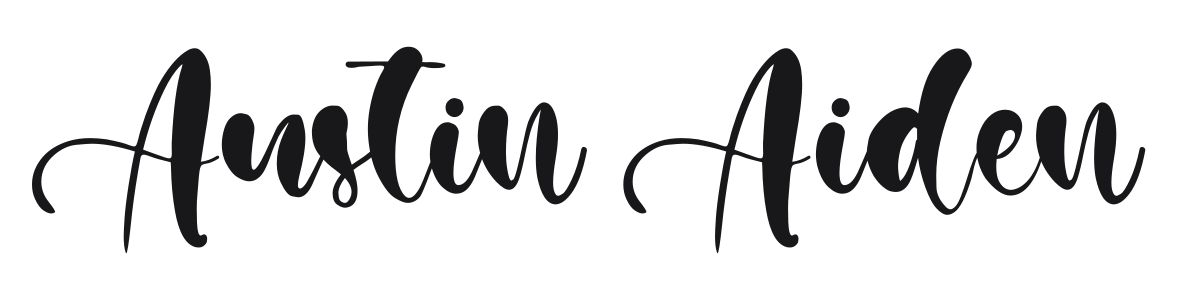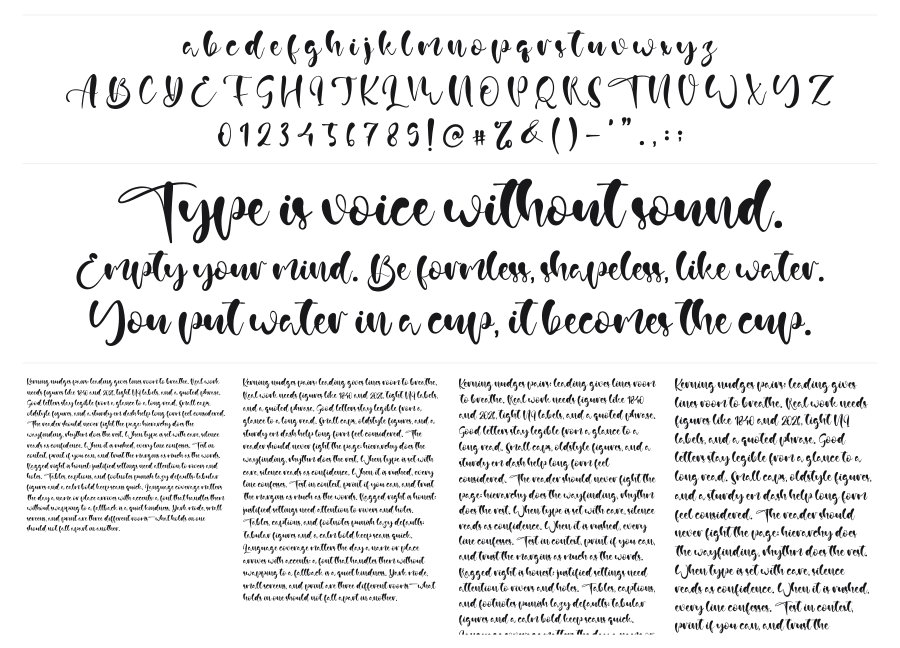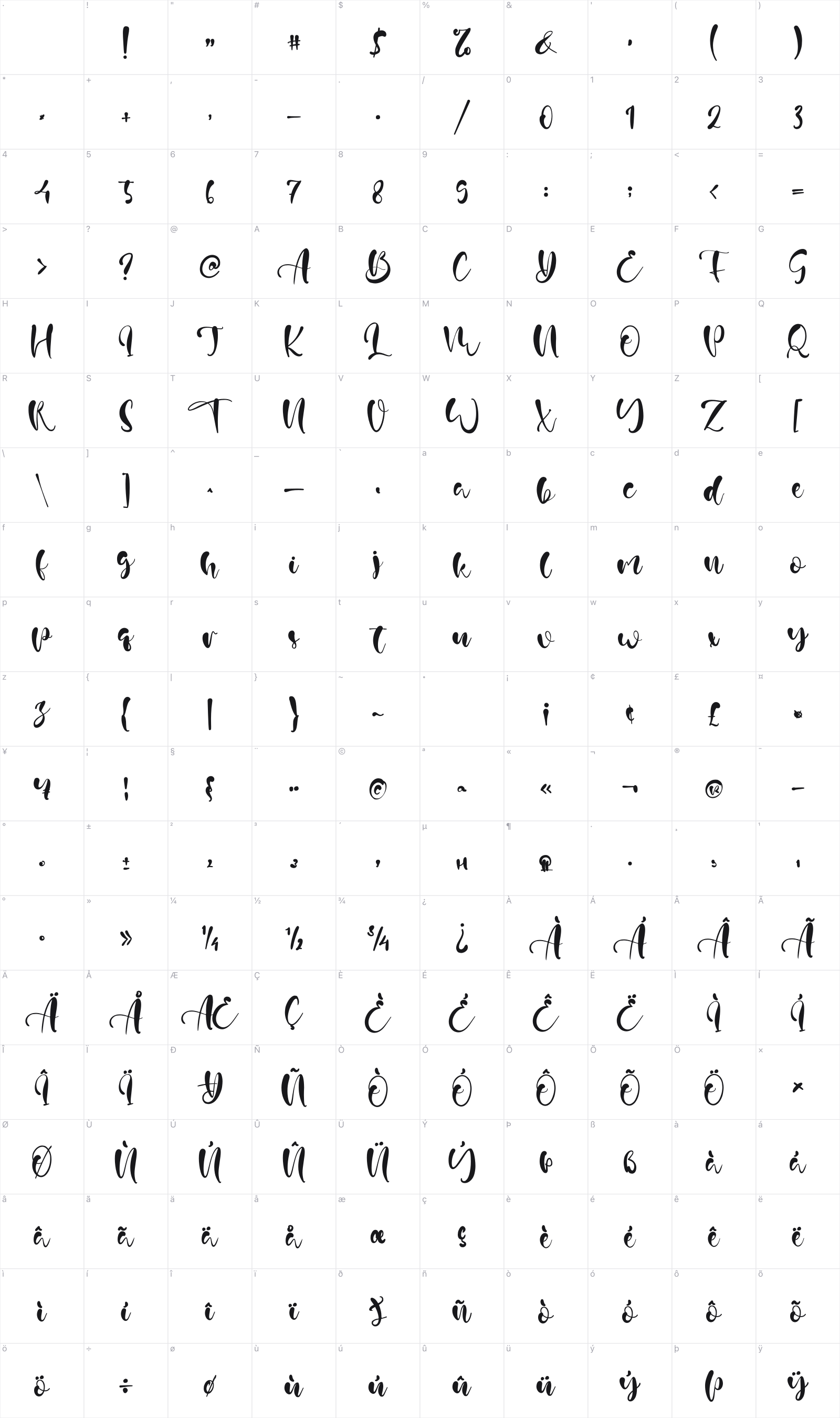
Austin Aiden
Austin Aiden is a contemporary brush script with a lively bouncy baseline and sweeping ink-like strokes. The generous ascenders and descenders give it real presence at headline sizes, and the casual warmth makes it feel handwritten without being rough. A natural choice for branding and packaging that wants to feel personal and approachable.